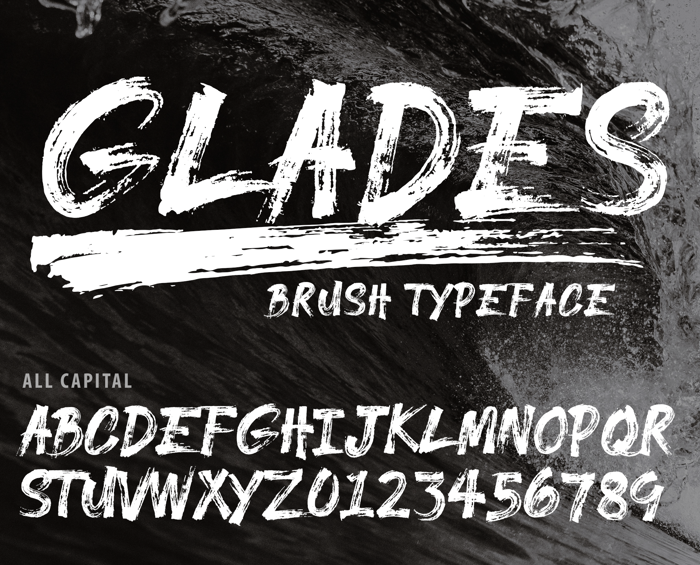
GLADES DEMO Font
GLADES
- Bold brush effect font perfect on your school projects, covers, etc.
- Lifestyle modern theme font for branding, website, mobile app etc.